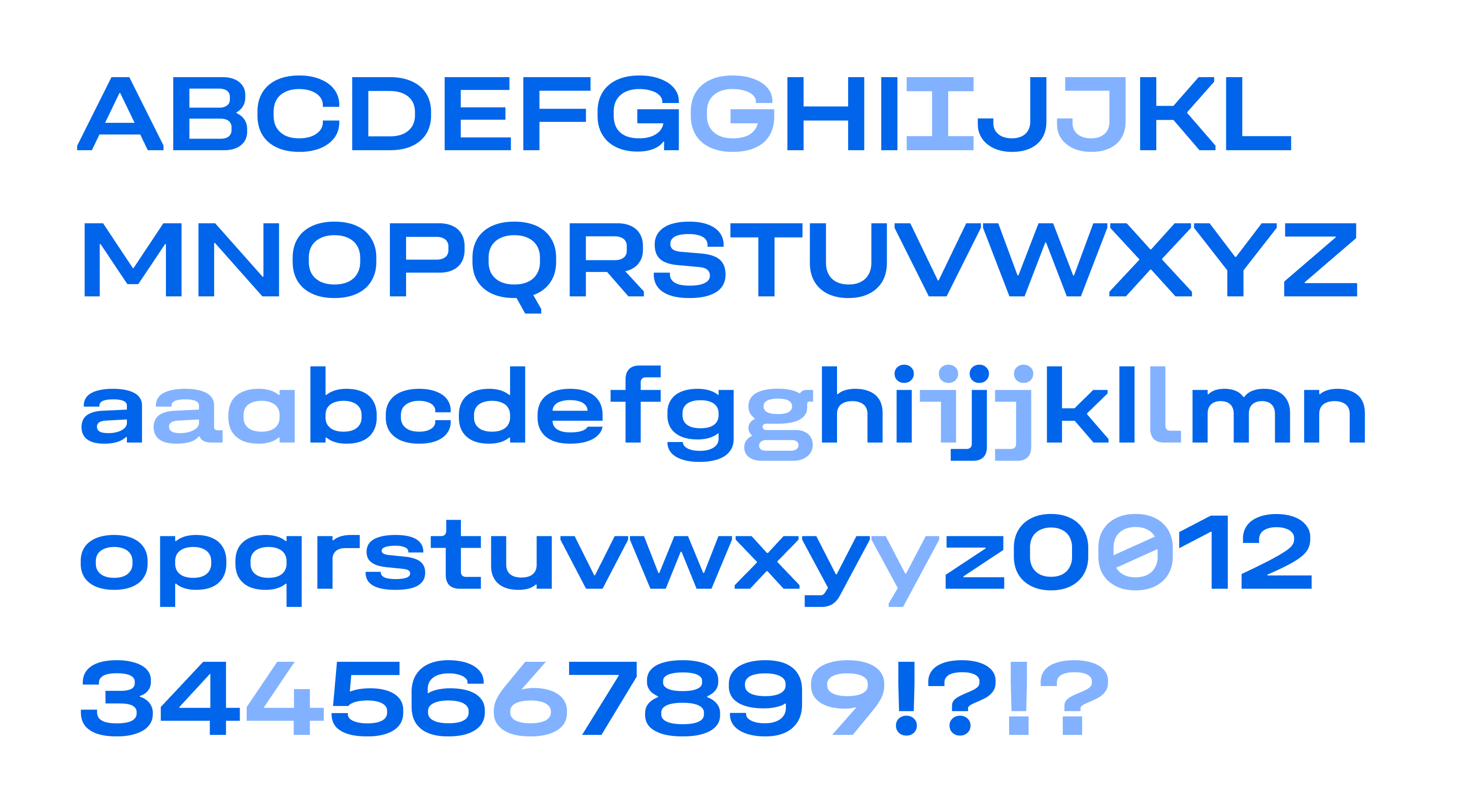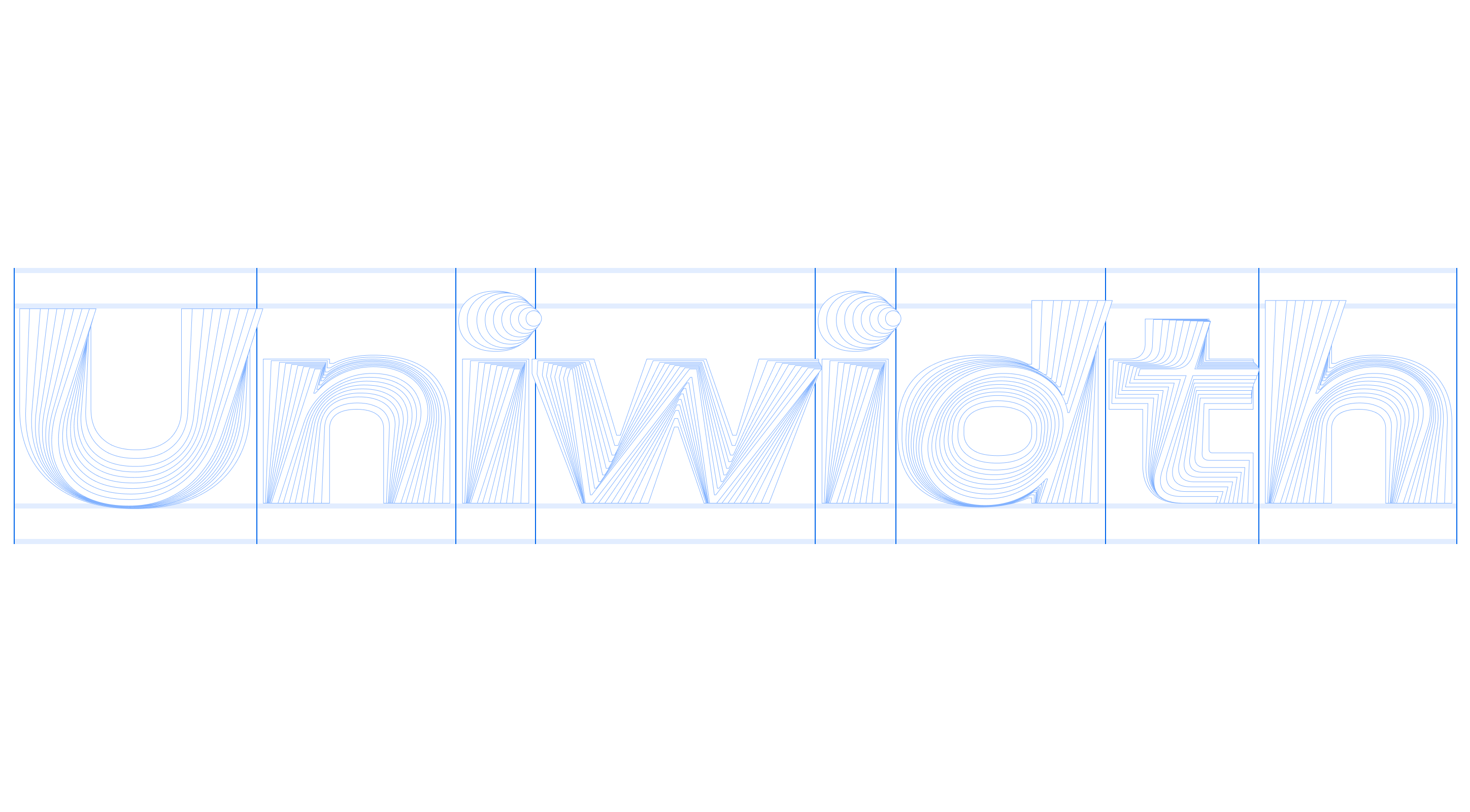
Unifora Expanded Collection
Full character set of Unifora Expanded, the widest width of the family. Shows uppercase, lowercase, figures, and punctuation together with all character alternates and stylistic sets — tailed a, single-storey a, double-storey g, open figures
Wireframe overlay of the word "Uniwidth" in Unifora Expanded across all nine weights from Thin to Black. Each character locks to its width as weight changes, demonstrating the uniwidth constraint at the widest setting of the family
Close-up of Unifora's lowercase "o" with bezier construction points visible, showing the straight segments on round glyphs. This signature design detail gives Unifora its industrial character and distinguishes it from purely geometric sans-serifs
Diagram illustrating Unifora's corner cuts on diagonal terminals, shown with scissor marks around the word "New York". The cuts carve breathing room where uniwidth spacing would otherwise cause angled strokes to collide at intersections
Unifora OpenType features: ss01 square punctuation, ss02 high-legibility set, ss03 open six and nine; cv01–cv11 character alternates for I, J, G, a, g, i, j, l, y, 4; plus ligatures, ordinals, slashed zero, tabular figures, case-sensitive forms
Unifora Expanded
Unifora Expanded is the widest variant in the Unifora uniwidth variable sans-serif superfamily, drawn at 125% of the standard proportions.
It is designed for contexts where letterforms need to command space and hold detail at large sizes: display headings, outdoor signage, wayfinding systems, hero typography, and wide-format print and packaging. At scale, Expanded makes Unifora's architectural details most visible—the corner cuts, the straight segments on curved glyphs, the full ±18° slant axis—all legible and intentional in ways that reward close viewing. This is not a body text width; it is a typographic statement, best used to set the visual register for everything underneath it.
Within Expanded, the uniwidth principle applies: every glyph holds its advance width regardless of weight or style, so a headline set in Thin and the same headline set in Black occupy exactly the same space—useful for animated or state-driven display type.
Unifora Expanded comes with 9 weights and matching italic and retalic styles with slants up to 18°. The variable font includes two axes: weight and slant.